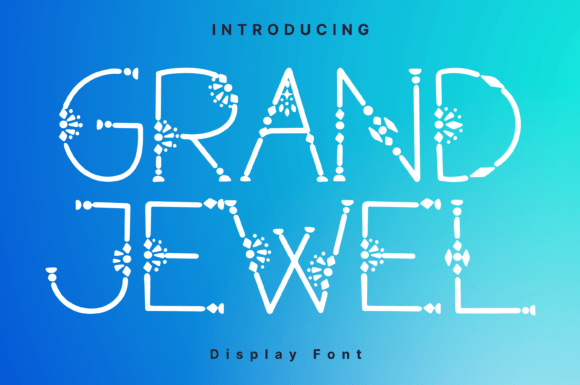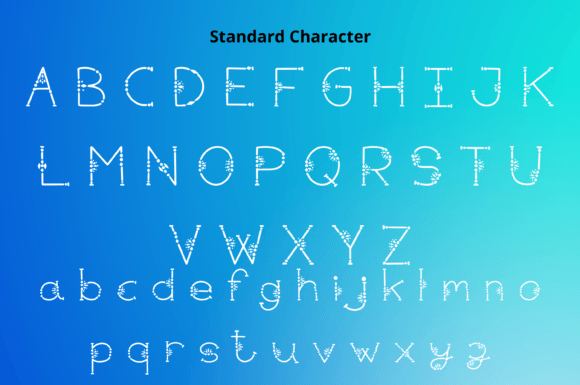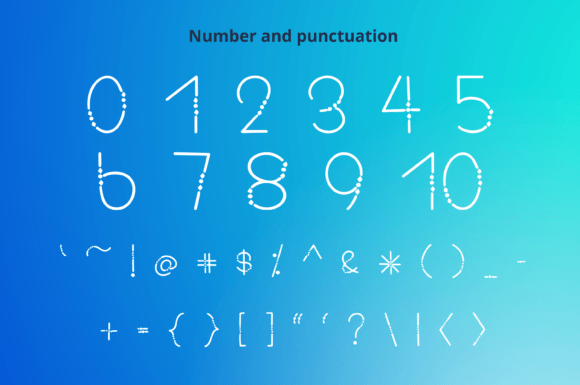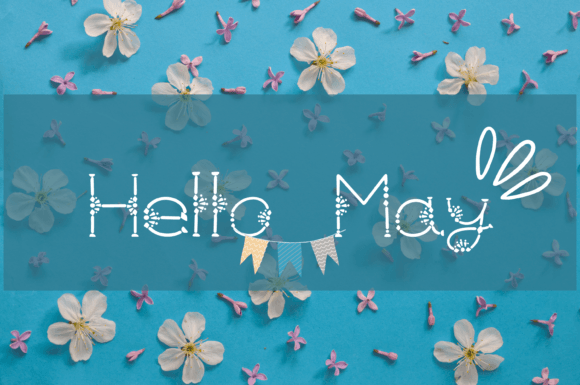
Grand Jewel Font: A Unique Decorative Display Font for Cricut & DIY
About the Grand Jewel Font
Discover the charm of Grand Jewel Font. This font is a perfect blend of modern aesthetics and classic appeal. Grand Jewel is a whimsical and cute decorative font. It can easily be matched to an incredibly large set of projects, so add it to your creative ideas and notice how it makes them stand out!
Grand Jewel’s whimsical nature makes it ideal for headlines, short text blocks on packaging, and playful branding projects targeting a younger demographic. It excels in creating a charming and eye-catching visual impact, particularly for projects emphasizing fun and lightheartedness. However, its decorative style is unsuitable for body text or UI elements where readability is paramount; extended use would hinder legibility.
Pairing Grand Jewel with a clean sans-serif font like Open Sans for body copy provides excellent contrast and enhances readability. For a more sophisticated feel, consider pairing it with a classic serif like Garamond or a subtly geometric sans-serif like Montserrat. These pairings balance the font’s playful energy with a touch of refinement.
The overall personality of Grand Jewel is undeniably cheerful and friendly, making it a strong choice for brands associated with children’s products, confectionery, or lighthearted entertainment. Its decorative elements should be thoughtfully incorporated to avoid overwhelming the design.
Grand Jewel Font Usage Examples
Grand Jewel Font Example